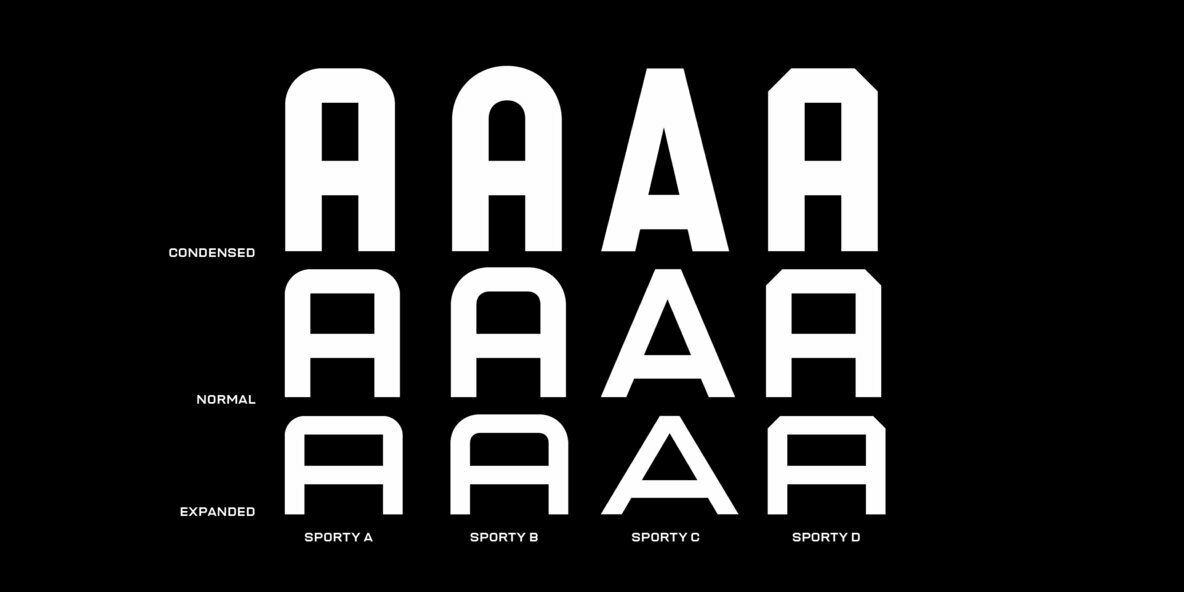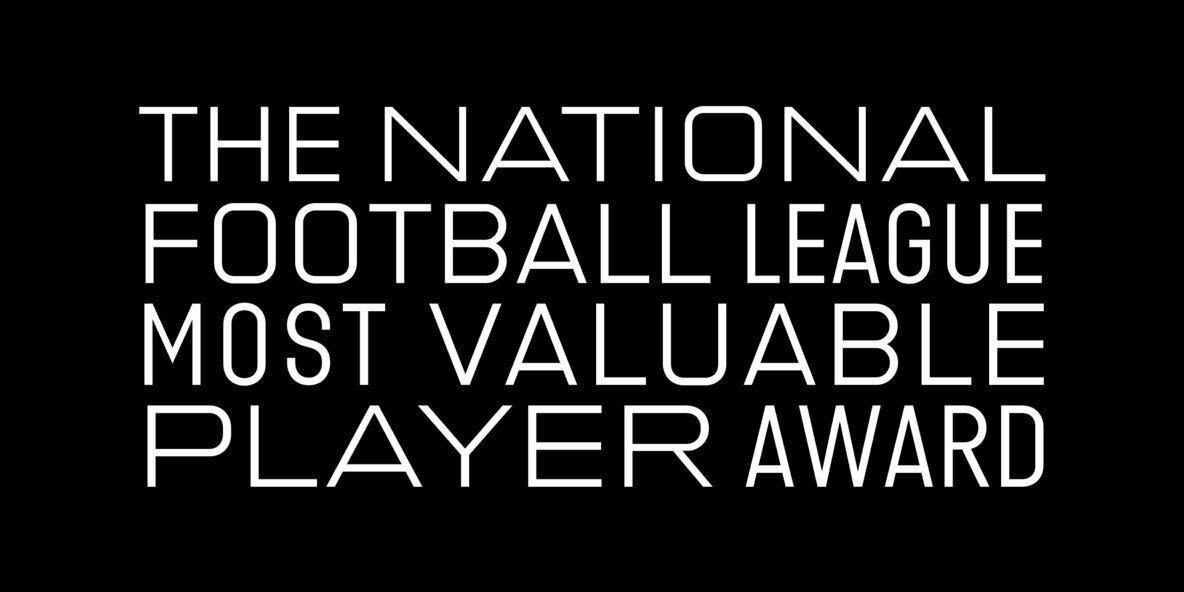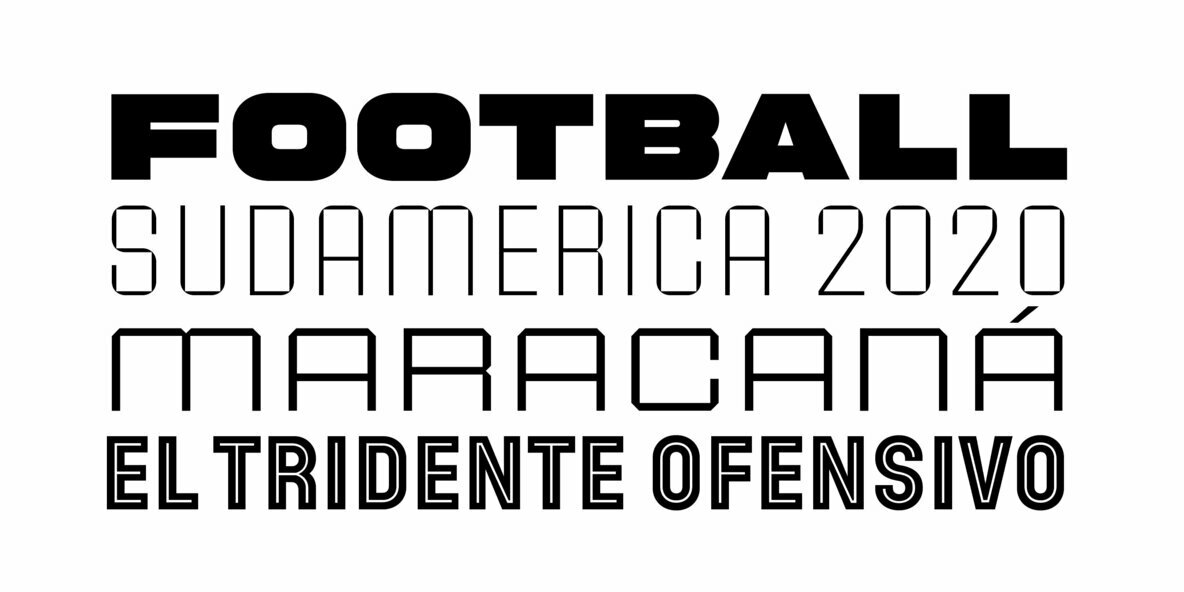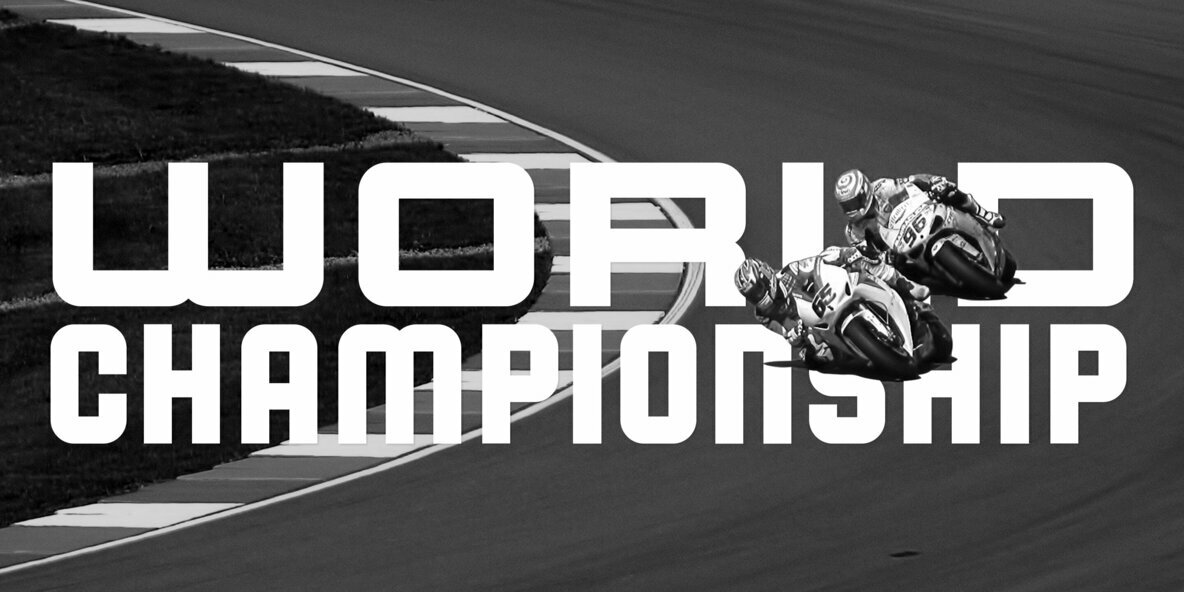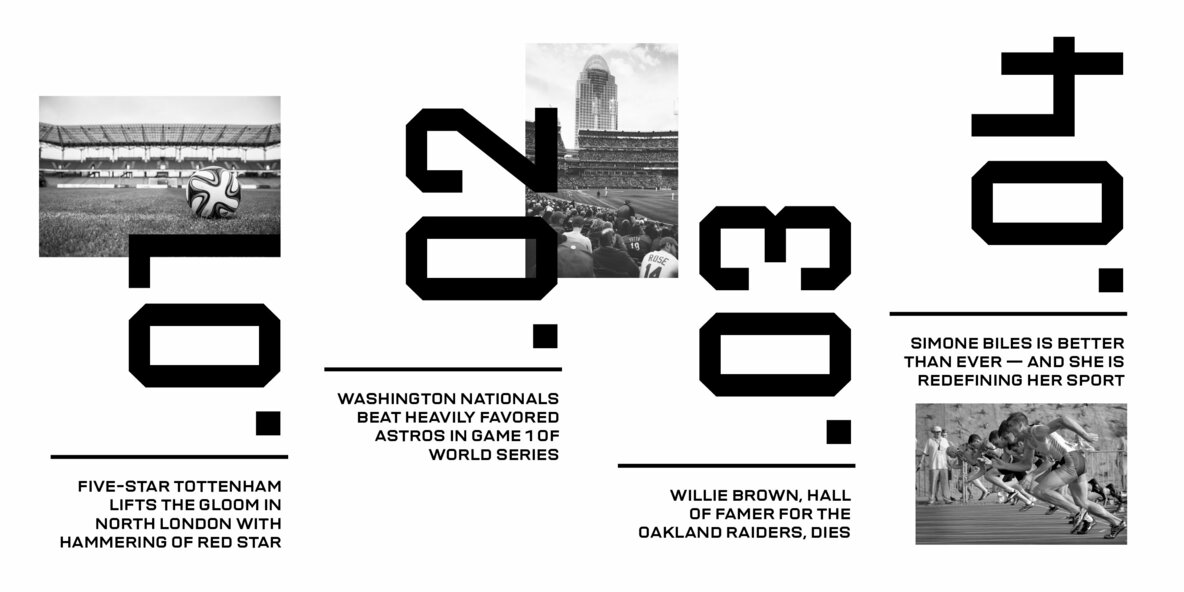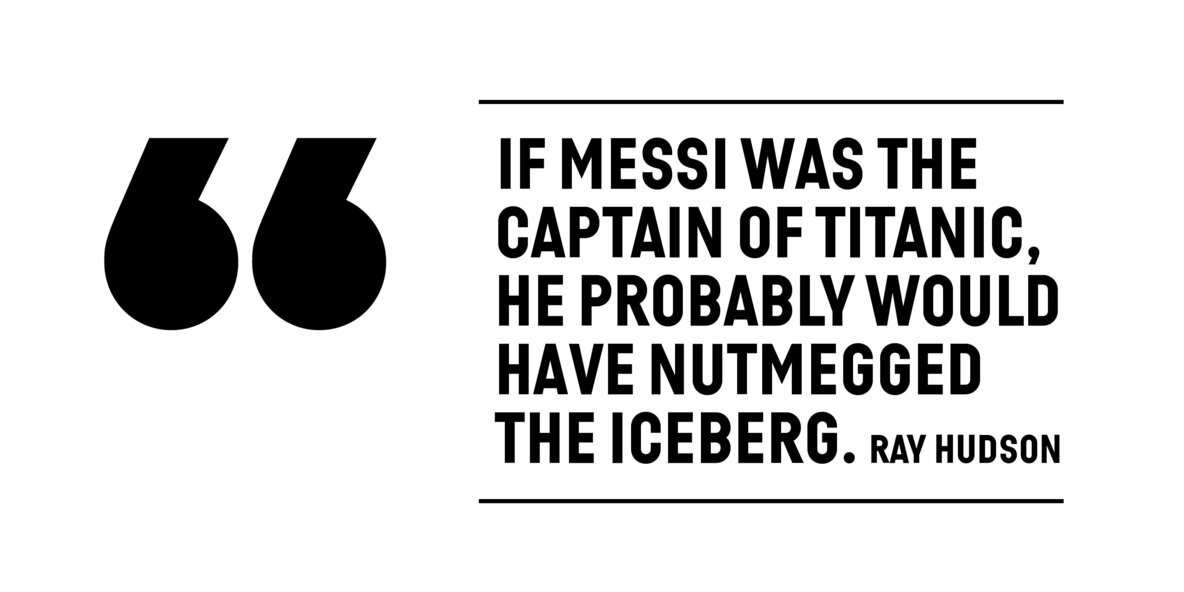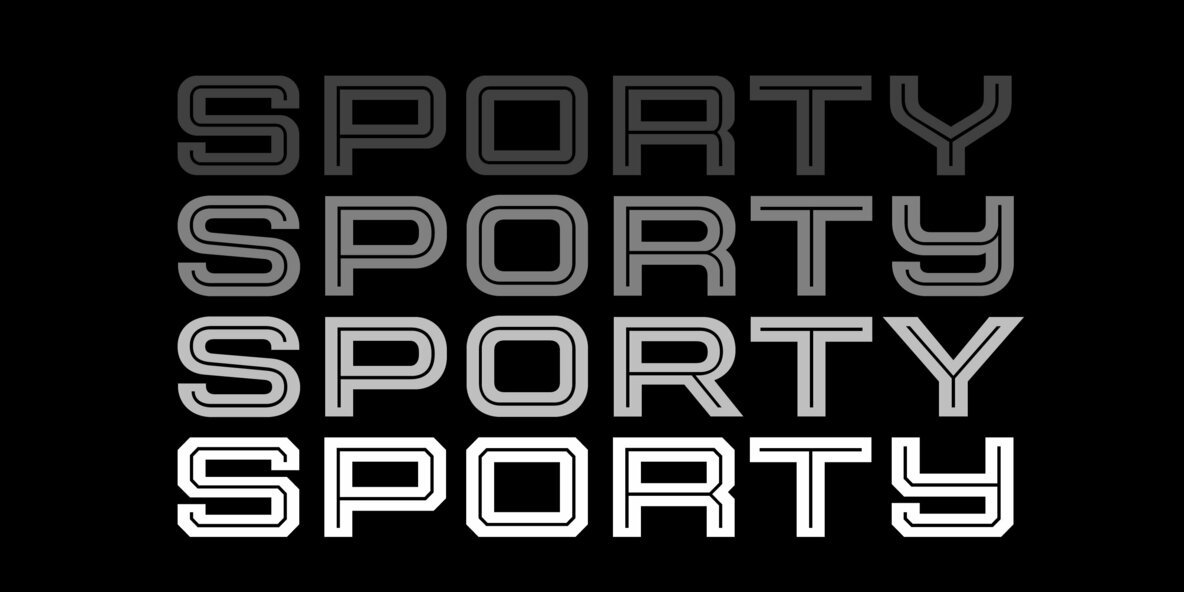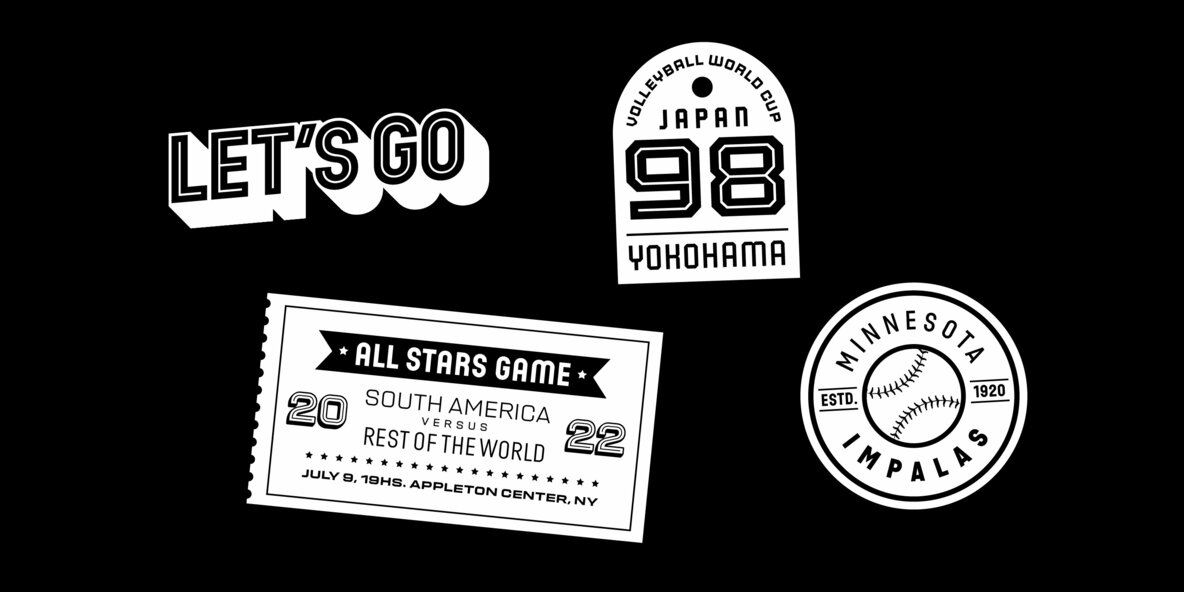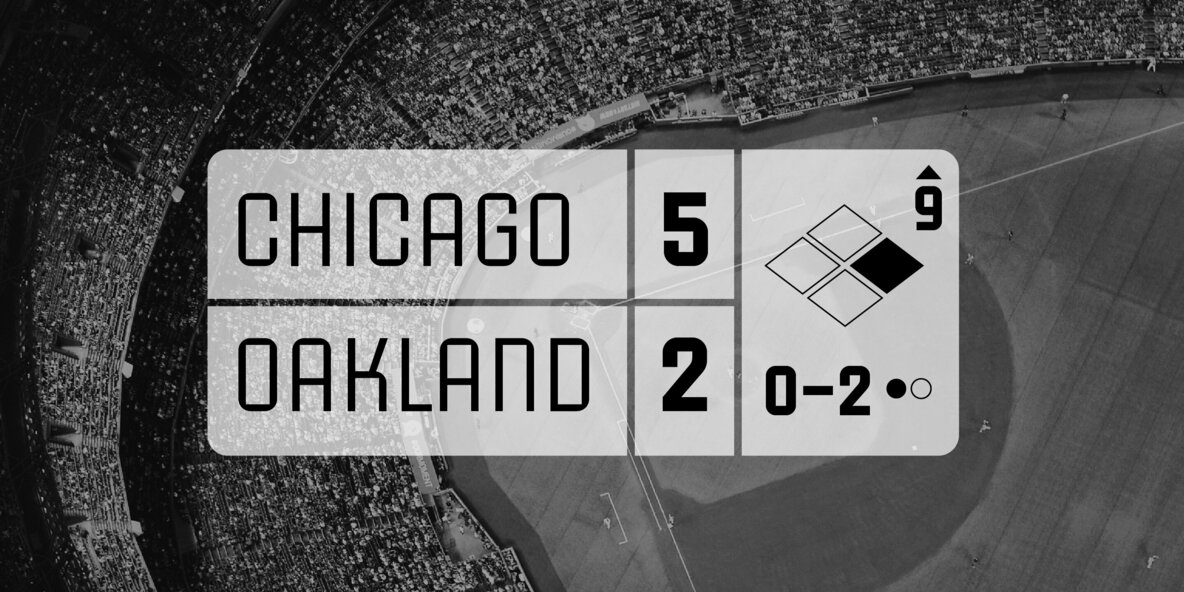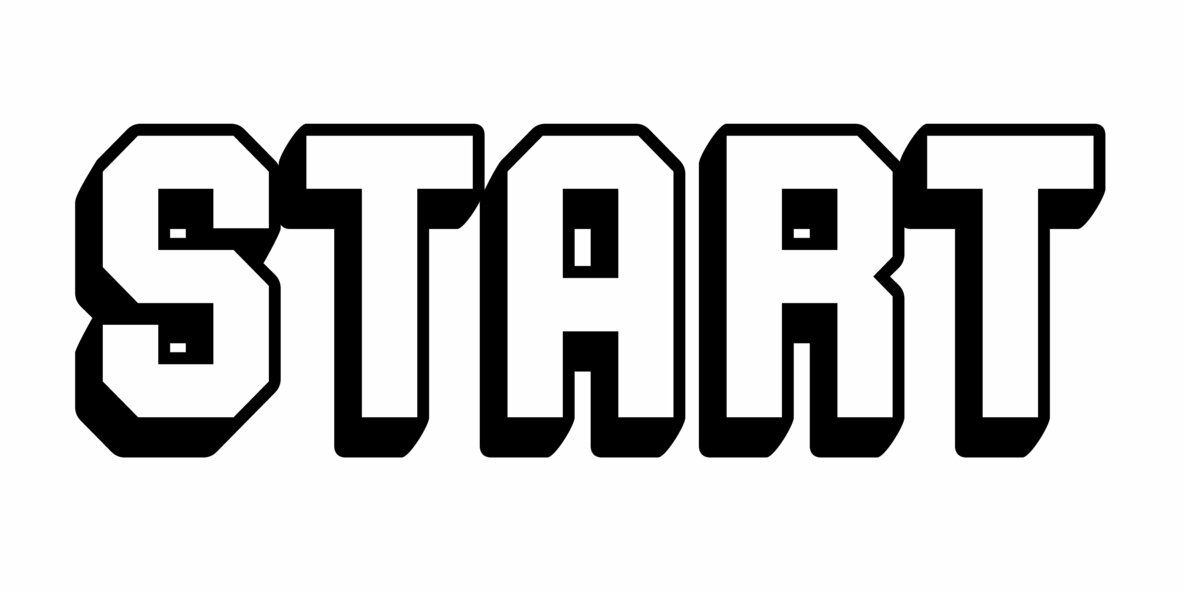
Sporty Pro Font
We love sports – like billions of fans all over the world – but in Argentina, we really love fútbol (soccer). Fútbol is part of our culture: it makes our hearts’ race and our pulses quicken, it inspires screams of joy and screams of anguish, and it has been the cause of more than a few heated conversations amongst friends. So you can imagine our delight when, in recent years, a local team’s fútbol jersey used a Sudtipos font; it got us thinking about designing a font that explicitly had sports in mind yet still had the versatility to work for other types of projects.
Sporty has a geometric and modular structure with many potential applications that far exceed jerseys, score boards and stadium wayfinding. Its flexibility is evident when examining its four style – from a square style to a rounded one – as well as the Shadow and Inline options. Each of the styles also comes with a set of miscellaneous shapes including modular banners, plates and arrows. Sporty comes in 3 widths – Condensed, Regular and Expanded – and 7 weights that equate to a total of 39 fonts.